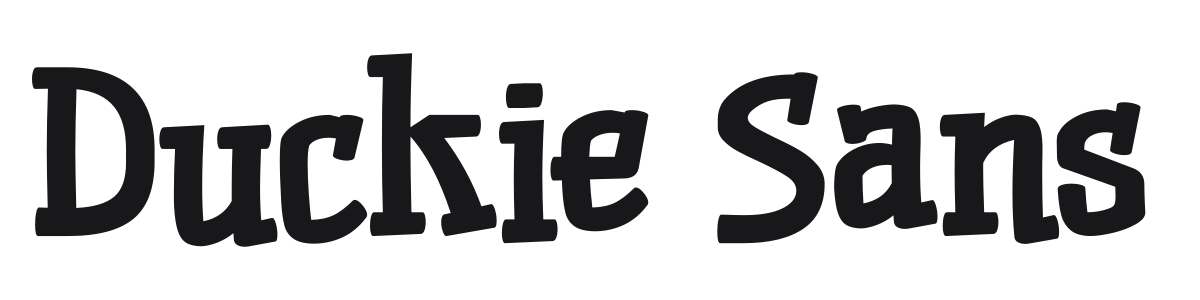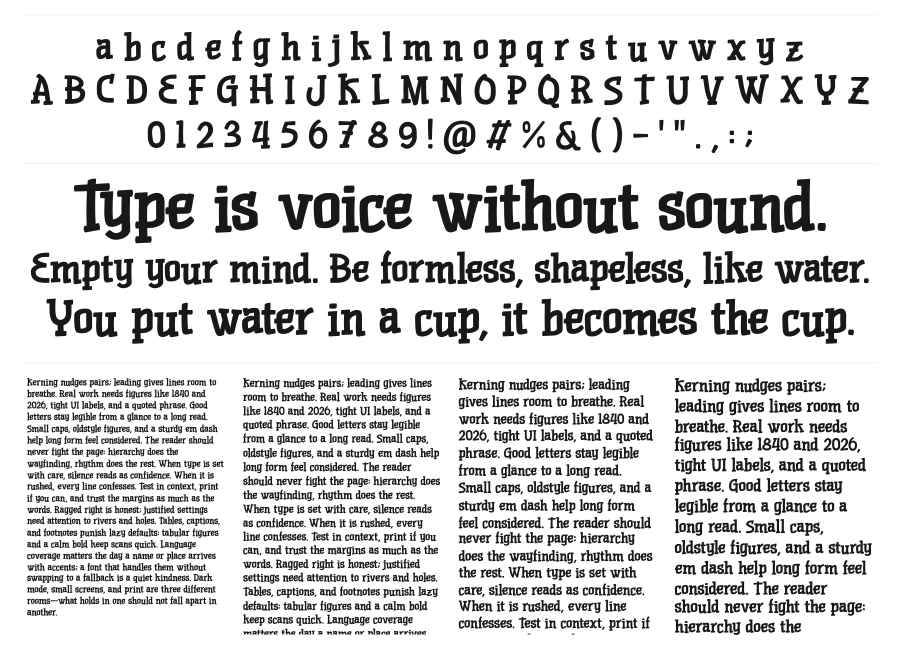
Duckie Sans
Duckie Sans is a chunky bold slab-serif with rounded terminals and a warm, hand-stamped quality. The heavy weight and low stroke contrast give it a friendly, retro-Americana character that works well on anything from burger joints to children's books. Slight organic irregularities keep it from feeling mechanical.